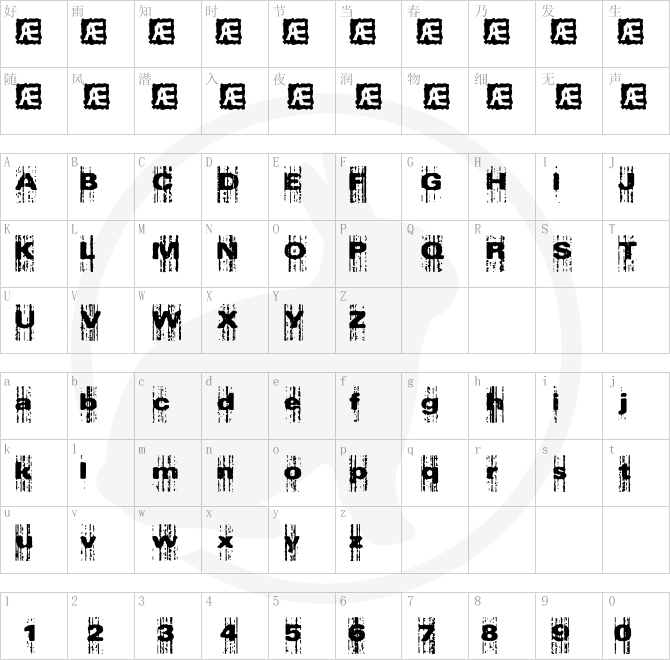
- Font Name:Xerox Malfunction (BRK)
Xerox-Malfunction-BRK-.ttf is a very beautiful artistic font, Xerox-Malfunction-BRK-.ttf is widely used in the design and printing of various books and pictures,Xerox-Malfunction-BRK-.ttf has a strong visual impact,Xerox-Malfunction-BRK-.ttf is a commonly used font in newspapers, magazines and books, and is used in posters, e-commerce Poster design, store design, logo design, font design and other fields.Xerox-Malfunction-BRK-.